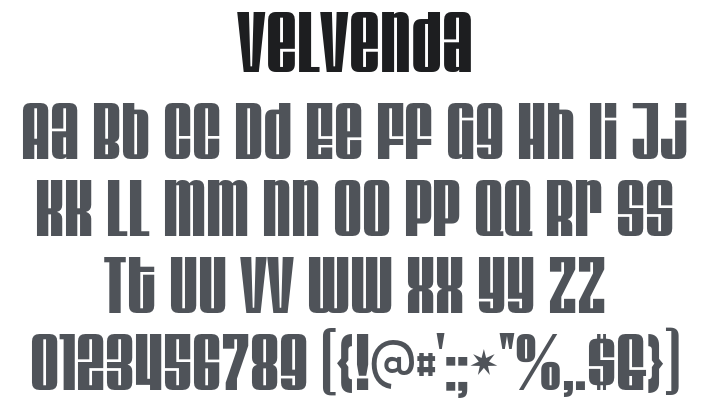
Velvenda Font Family
About Velvenda
Velvenda is a narrow, dense geometric display typeface inspired by 1960s jazz album covers — tall, tightly packed letterforms with an unconventional rhythm and sardonic swagger that feels simultaneously cool and slightly menacing. Available in three weights: Chill, Cooler, and Megablack. Perfect for jazz-themed designs, retro editorial headlines, music branding, cocktail bar signage, and any project needing effortlessly confident, decade-defining groove.